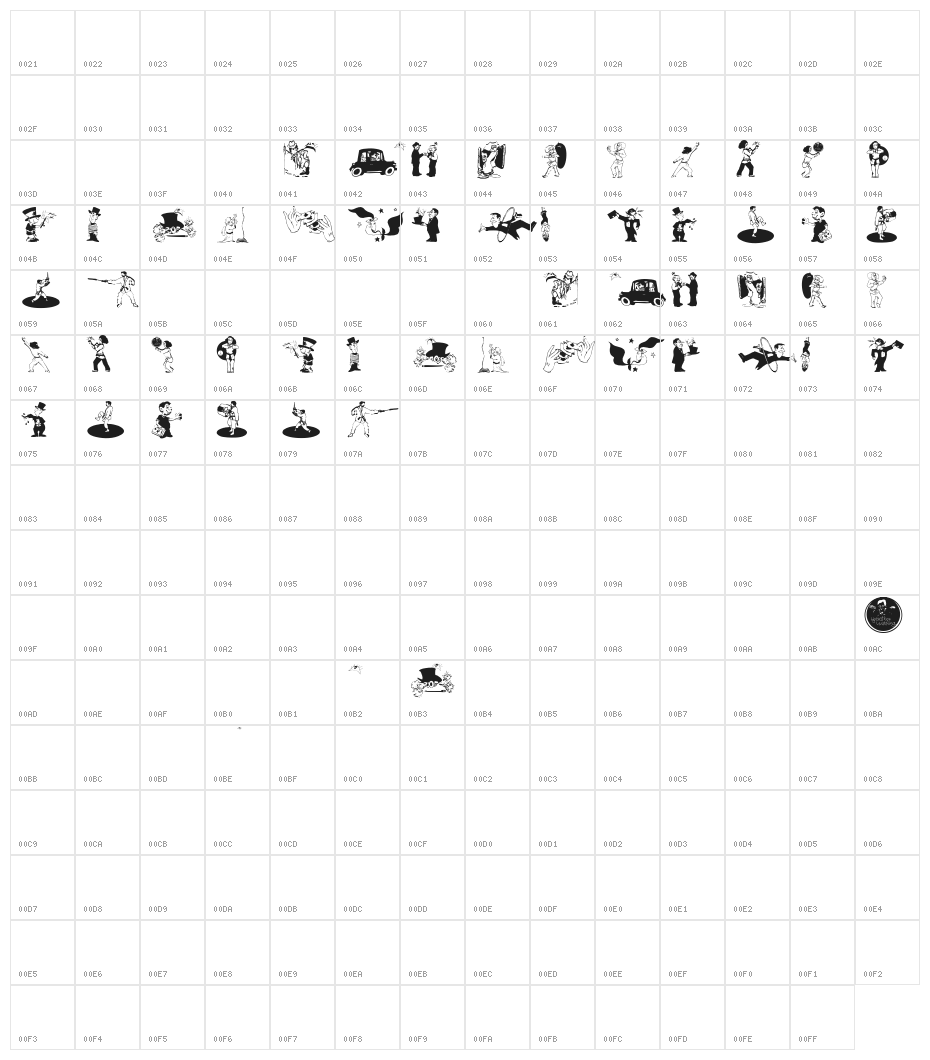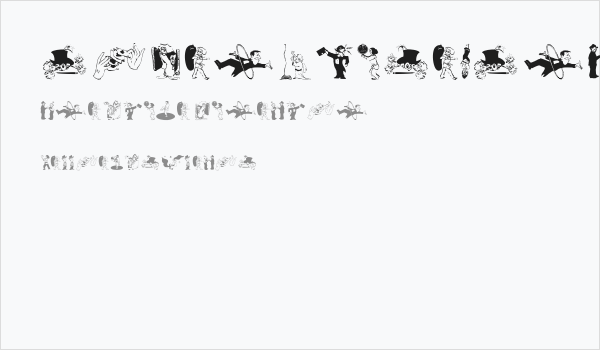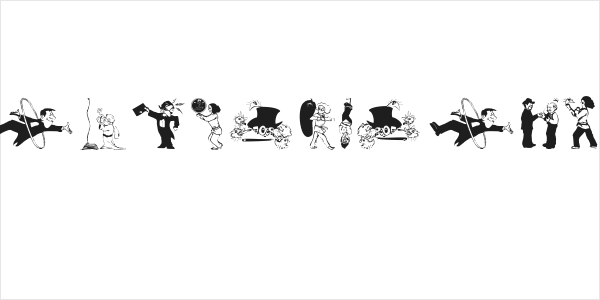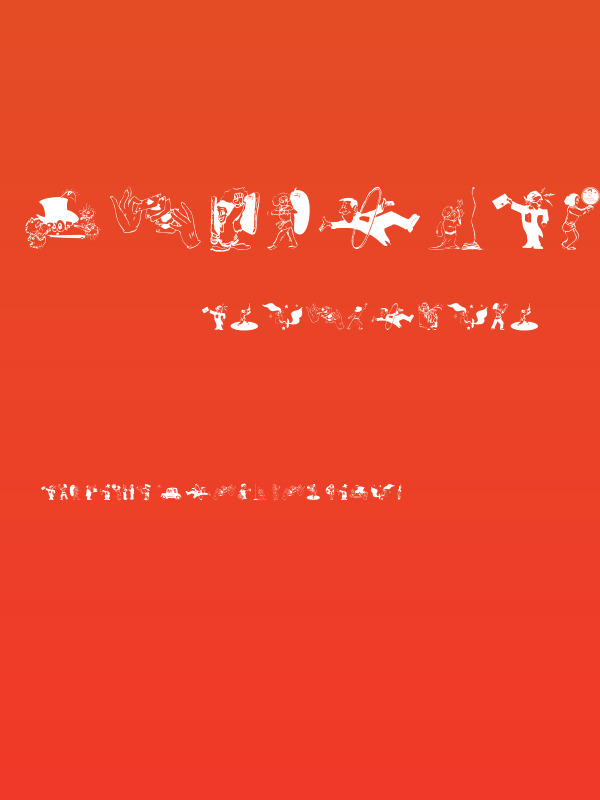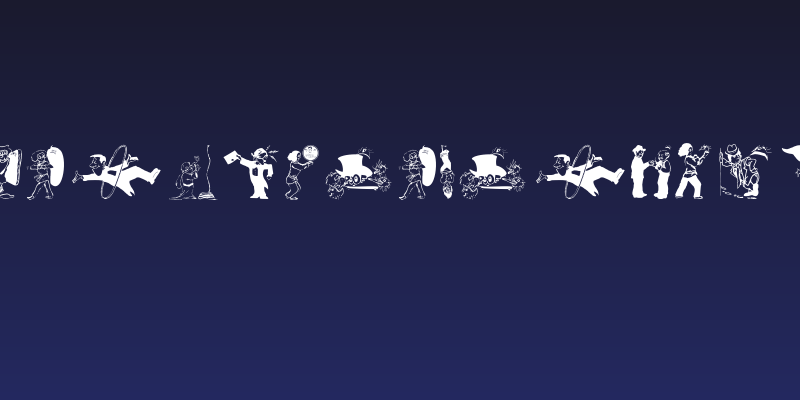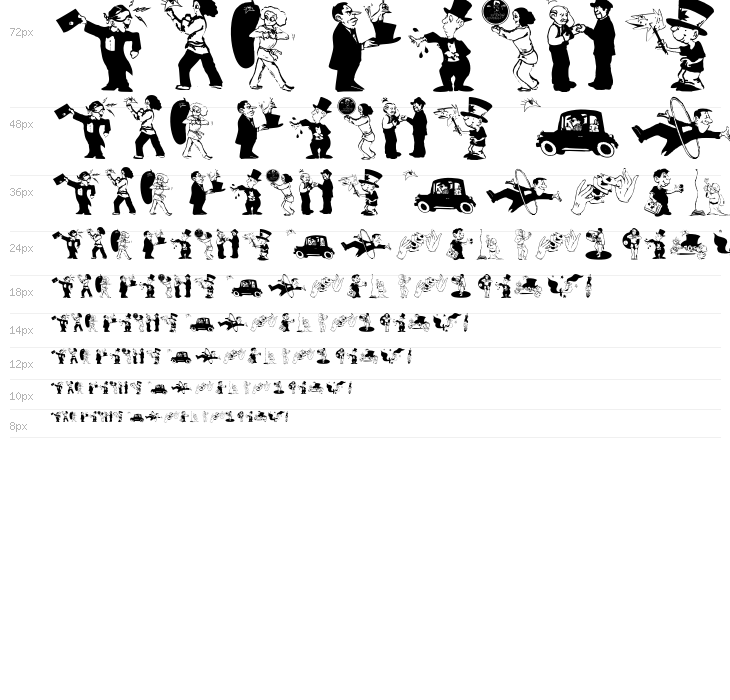
ModernTimesMrChaplin Font
ModernTimesMrChaplin Description
This is a decorative font featuring whimsical illustrations inspired by classic cinema, particularly the iconic character of a comedic gentleman with a bowler hat and cane. Each character is represented by a unique illustration, capturing scenes of humor and charm. The font is highly detailed, with each letter and number depicted through playful and dynamic poses. The style is reminiscent of early 20th-century film, with a vintage flair that evokes nostalgia and creativity. The characters are expressive, making this font ideal for projects that require a touch of personality and artistic flair.
| Overall Style | Vintage, Decorative |
| Use Case | Logos, Posters, Creative Projects |
| Proposed Projects | Ideal for movie posters, themed event invitations, vintage-style branding, and creative storytelling projects. |